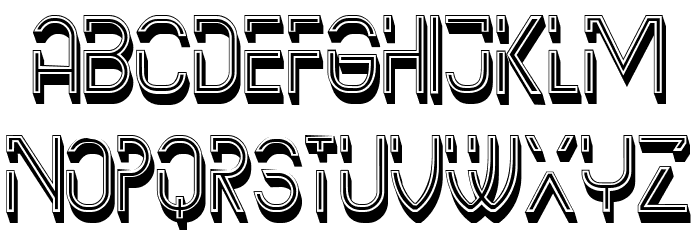
Anede Regular Font
This font features a bold, geometric design with a three-dimensional effect, achieved through the use of shadowing and layering. The characters are constructed with clean, straight lines and sharp angles, giving it a futuristic and industrial feel. The uppercase letters are particularly striking, with a strong presence and a sense of depth. The font's unique style makes it stand out, with each letterform having a distinct personality. The design is consistent across all characters, maintaining a uniform look that is both modern and eye-catching. This font is ideal for projects that require a bold statement and a contemporary aesthetic.
A bold, geometric font with a three-dimensional, futuristic design.
- Proposed Projects: Ideal for branding, posters, headlines, and any project needing a modern, impactful look.